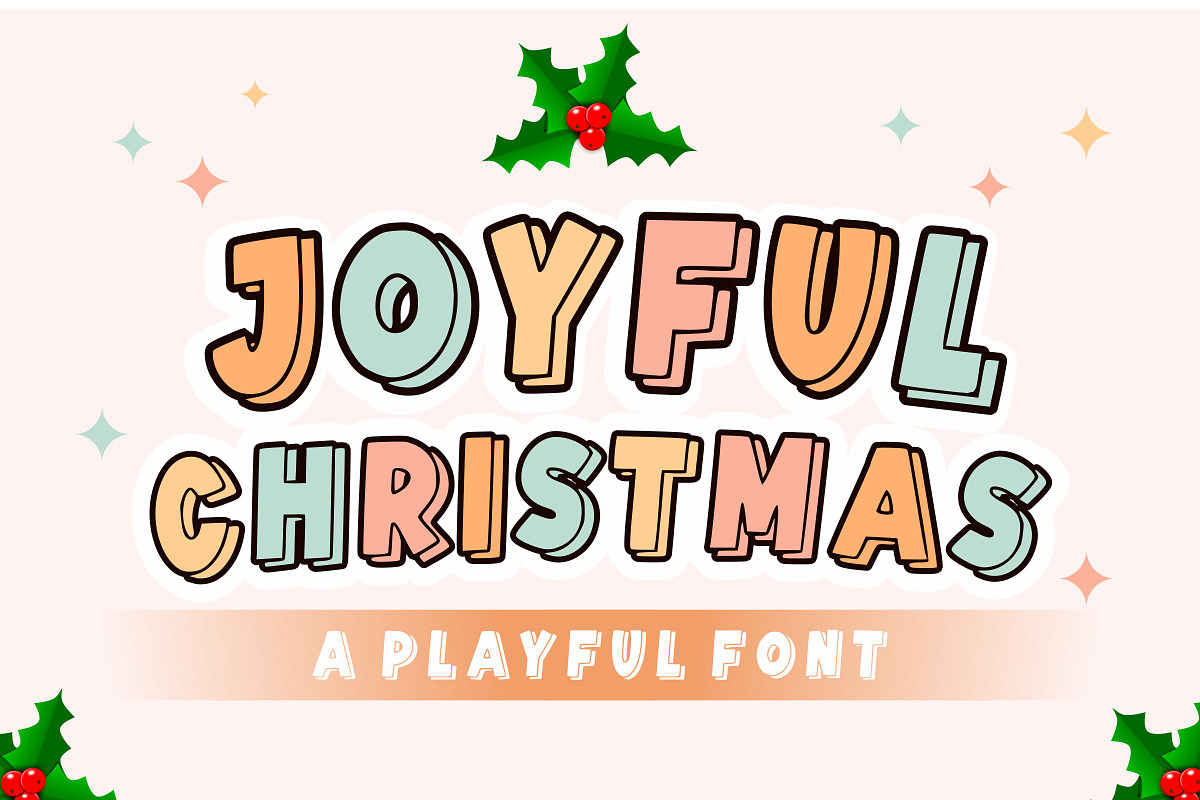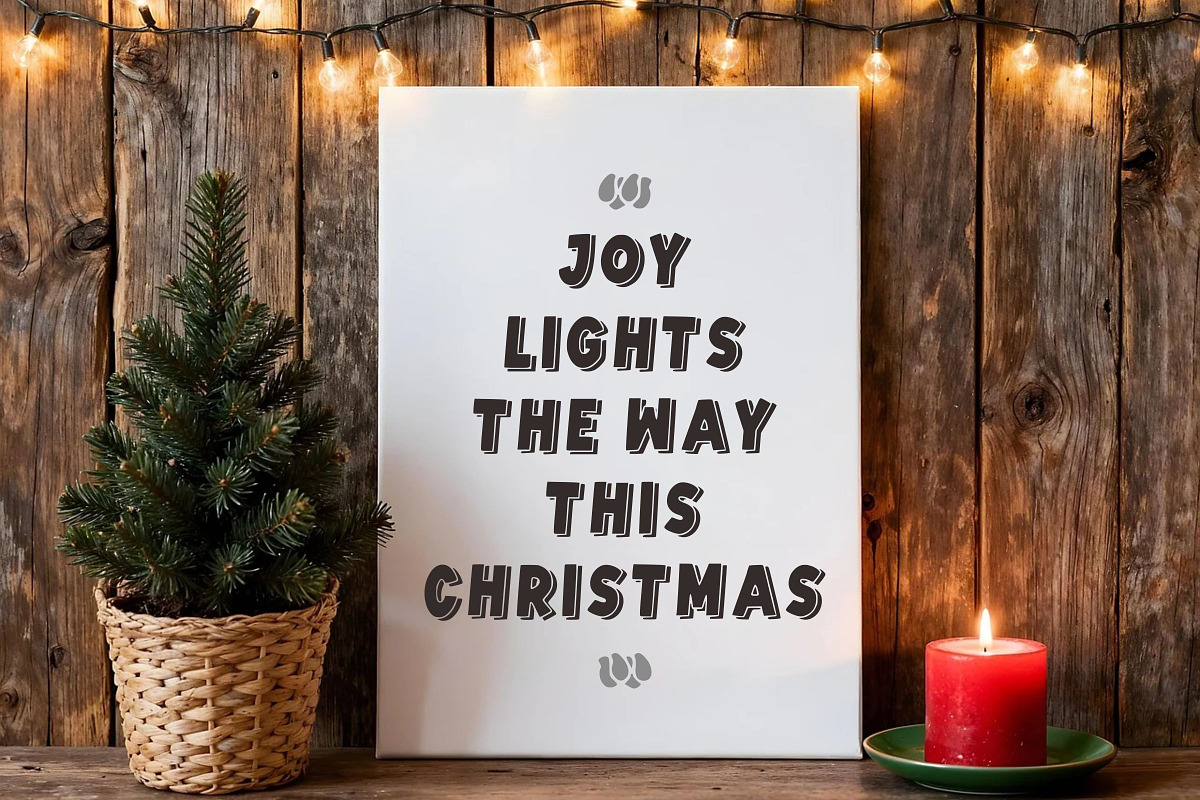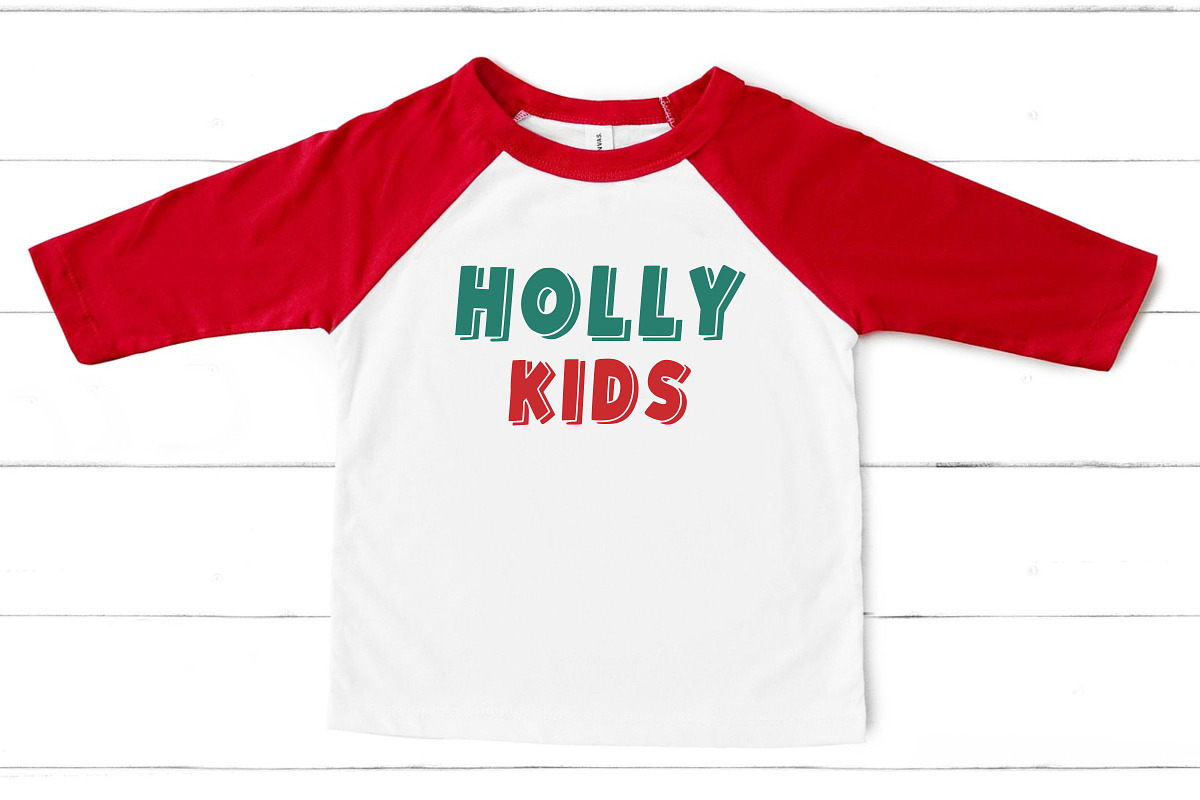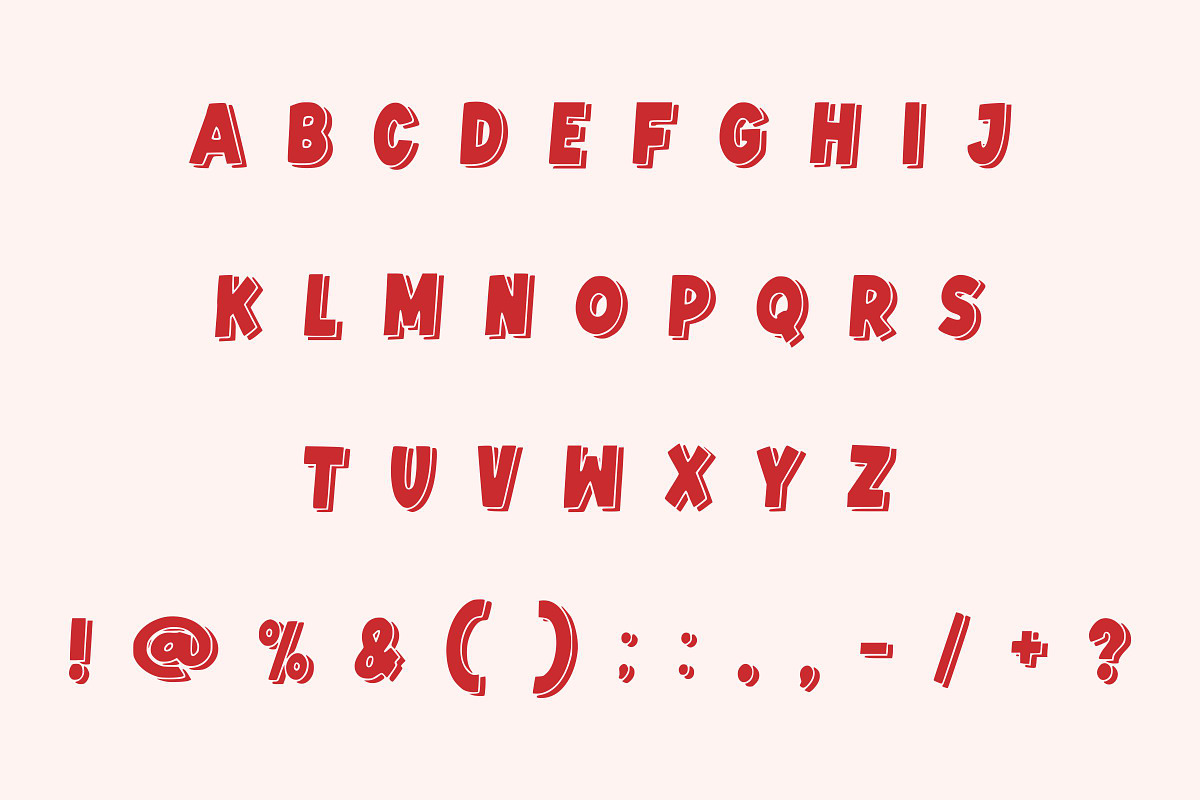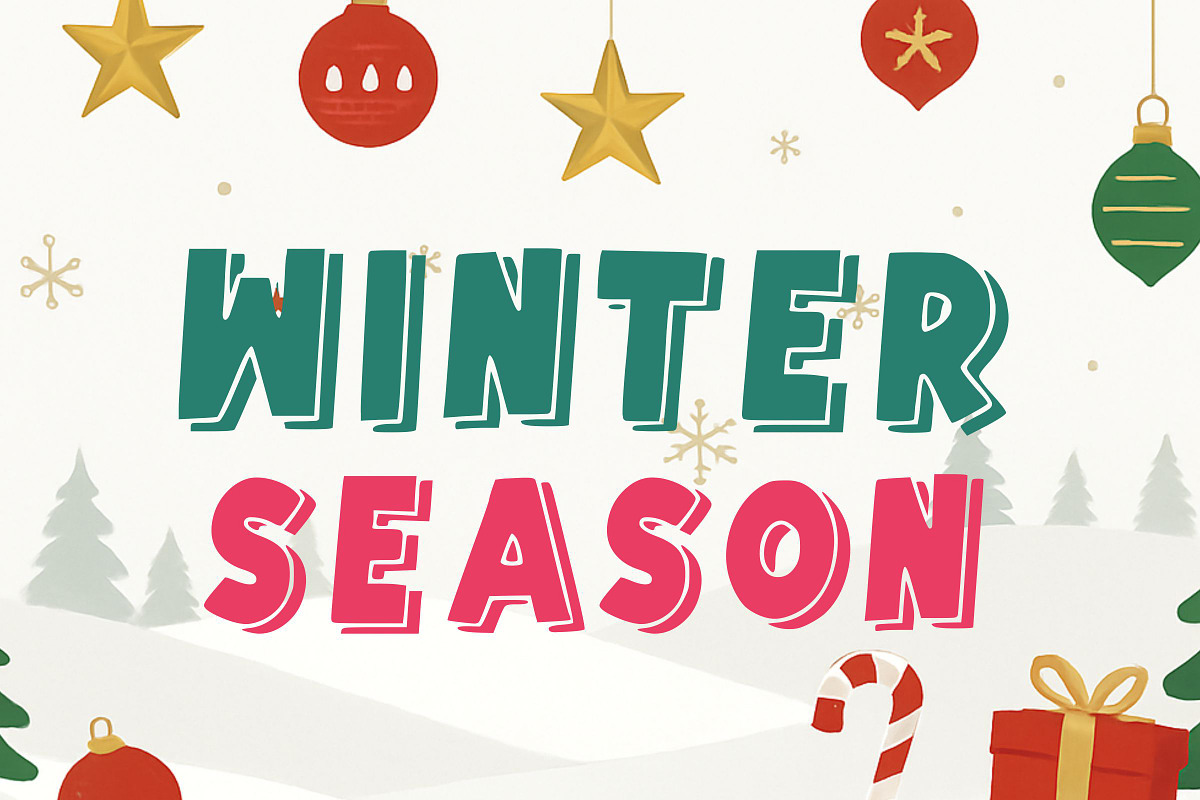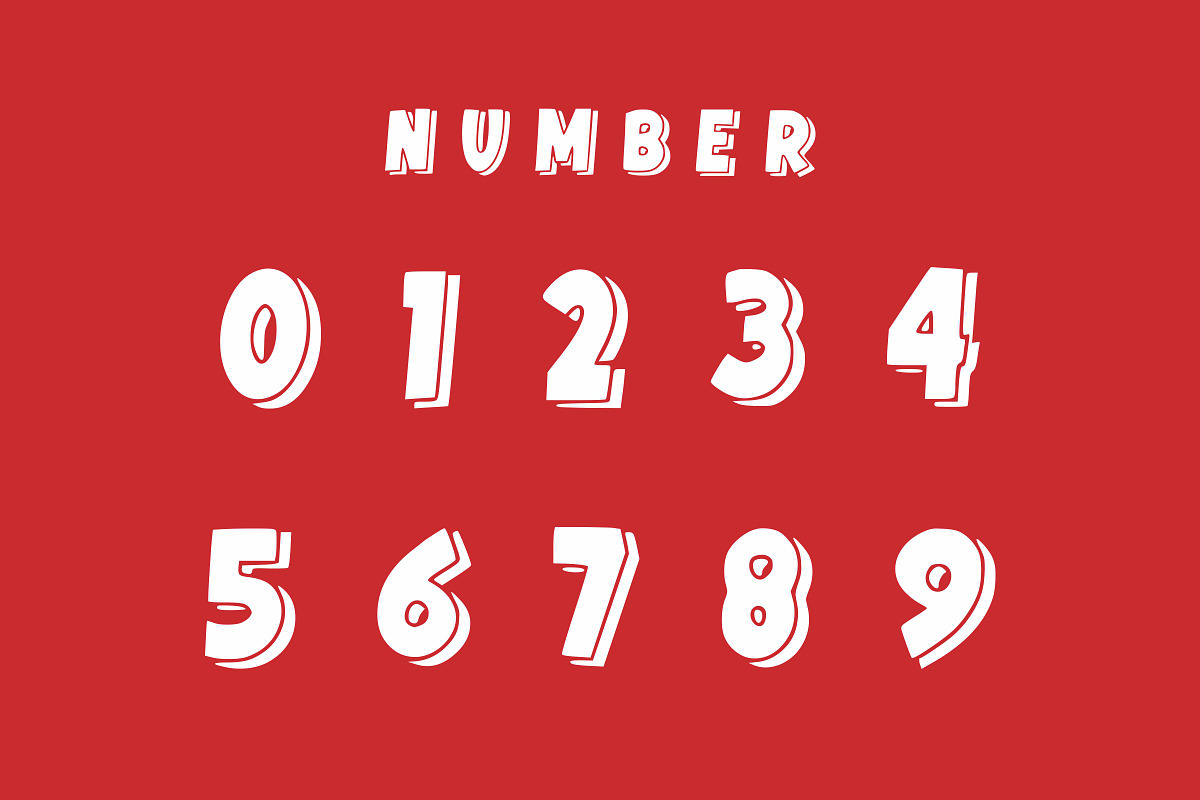
Joyful Christmas
Unleash the festive spirit with the Joyful Christmas font, a playful and irresistibly charming typeface that brings a unique, layered, 3D effect to your holiday projects.
This delightful Joyful Christmas typeface features chunky, soft edges and a pastel-colored style perfect for children’s books, greeting cards, or whimsical holiday apparel. Its cheerful, bold structure makes it a fantastic display font that stands out beautifully on signs, banners, and product packaging.
The Joyful Christmas font is specifically designed to convey happiness and fun, making it an essential addition for designers who create lighthearted, seasonal content. This playful type is your shortcut to creating adorable, memorable graphics that capture the magic of the season.